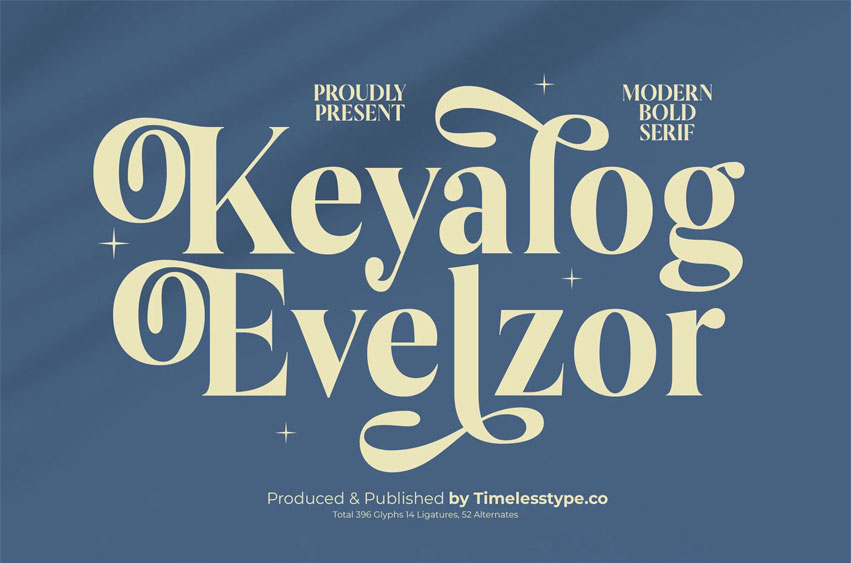
Keyalog Evelzor Font
Keyalog Evelzor Font is a modern bold serif display font defined by expressive curves, sweeping terminals, and elegant high-contrast strokes. Its decorative flourishes and strong serif structure bring luxurious charm and contemporary sophistication—making it perfect for branding, posters, magazine layouts, packaging, invitations, and standout logo designs. The font blends modern refinement with a touch of retro flair, delivering a stylish and captivating visual identity.
With 14 ligatures, 52 alternates, and a total of 396 glyphs, Keyalog Evelzor offers extensive creative flexibility for crafting ornate wordmarks, expressive headlines, stylized monograms, and beautifully refined typographic compositions. Its bold presence, graceful rhythm, and premium detailing make it an ideal choice for designers seeking an elegant, dramatic, and visually impressive serif display font.